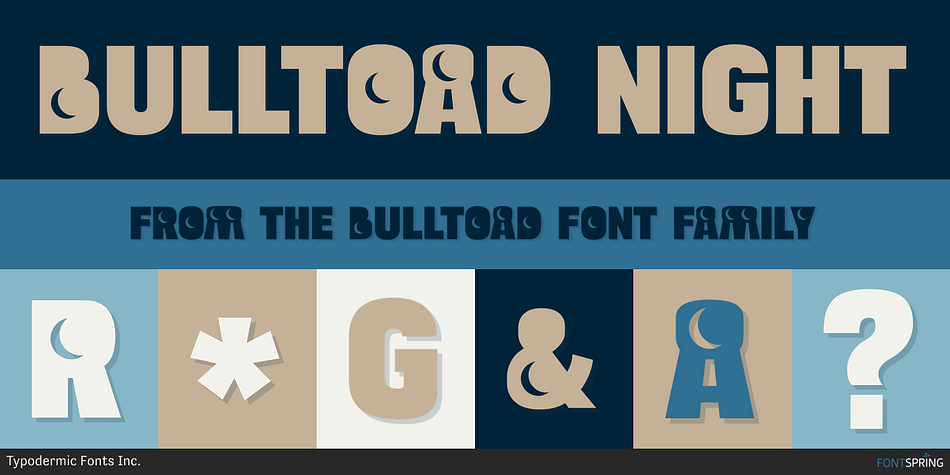
BULLTOAD NIGHT
Bulltoad is a novelty font family. This typeface has thirty-three styles and was published by Typodermic Fonts Inc.
Bulltoad is a set of 33 fonts with thematic icon counters. Apple, boat steering wheel, classic bomb, bone, butterfly, maple leaf, car icon, camera, crosshair, crucifix, skull, U.S.A. Democrat icon, female symbol, fish, medical cross, hemp leaf, Jesus fish, jet airliner, old-fashioned key, heart, shamrock, male symbol, crescent moon, peace sign, pistol, question mark, U.S.A. Republican icon, rose, star, smiley face, star of David, sun, lightning bolt.